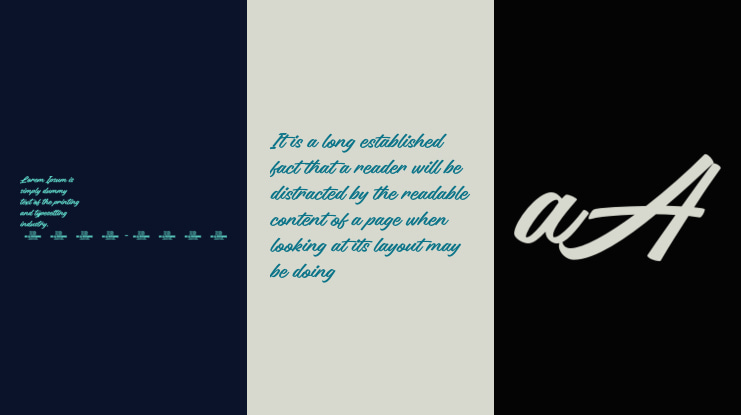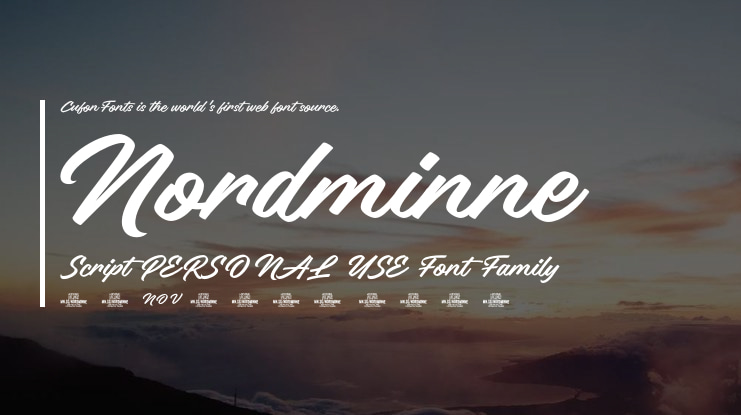
Nordminne Script PERSONAL USE Font
NOTE: This font is for PERSONAL USE ONLY!To purchase a commercial license, visit:https://www.mansgreback.com/product/nordminne-scriptNordminne Script is a bold, fast-flowing brush typeface with a sense of confident flair. Designed with an expressive stroke and rich rhythm, it captures the spontaneity of hand-lettered signage while maintaining high readability.Use underscore _ anywhere in a word to create a swash.Example: Flower_gardenFor different swashes, use multiple underlines. Example: Hand____drawnFor questions, please visit https://mansgreback.com/faq